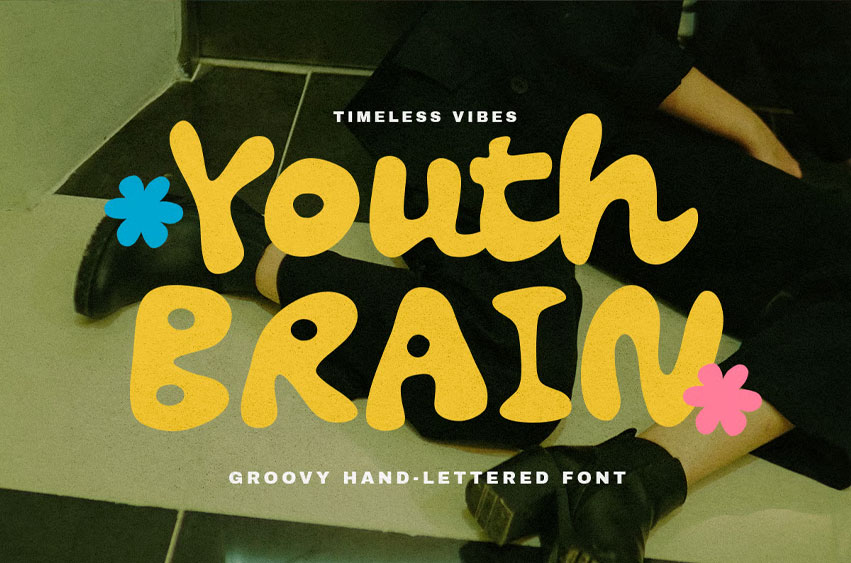
Youth Brain Font is a hand-lettered typeface with a groovy vibe. You can mix and match uppercase and lowercase letters to create a font duo, using uppercase as a sans-serif and lowercase as a script. This versatile font is suitable for various purposes, such as posters, branding, quotes, and even logotypes.